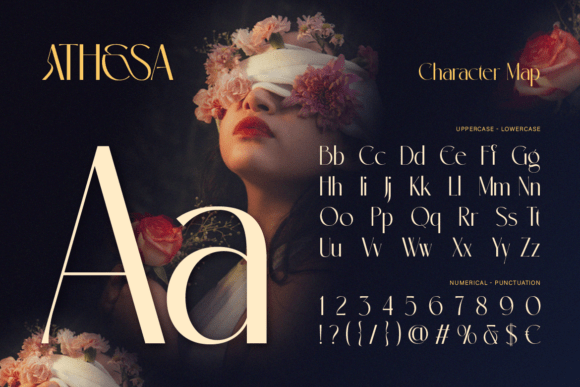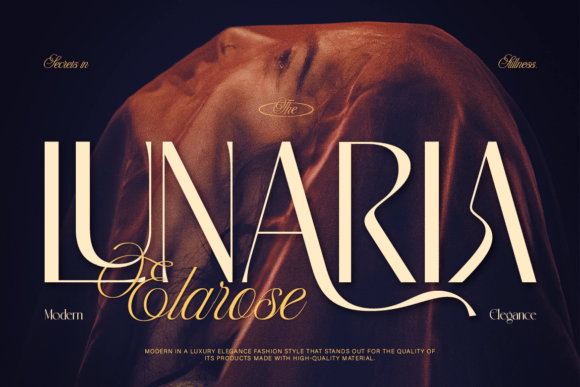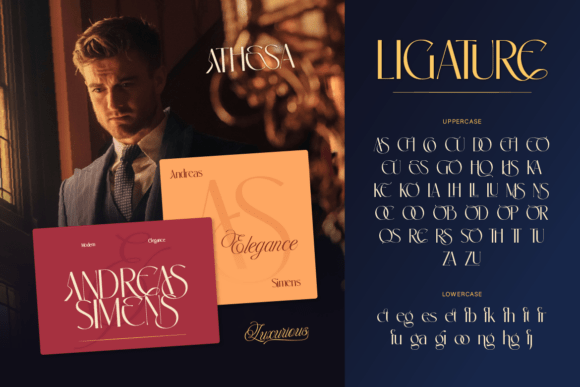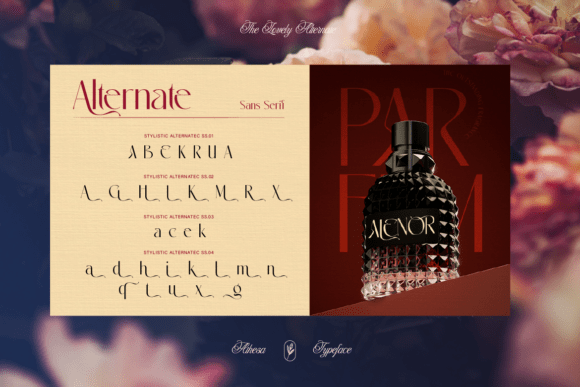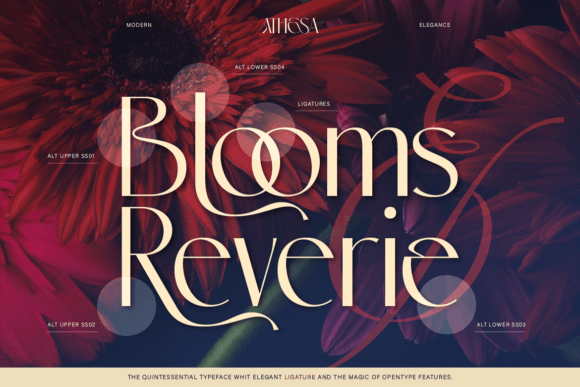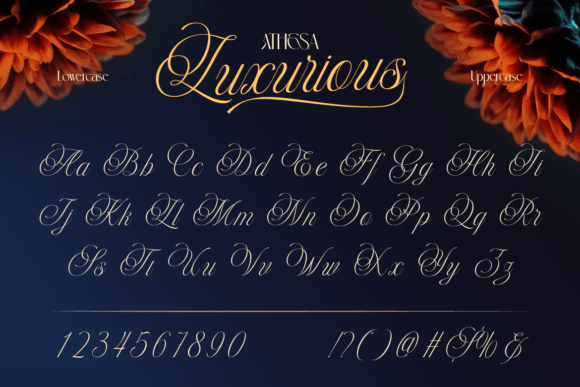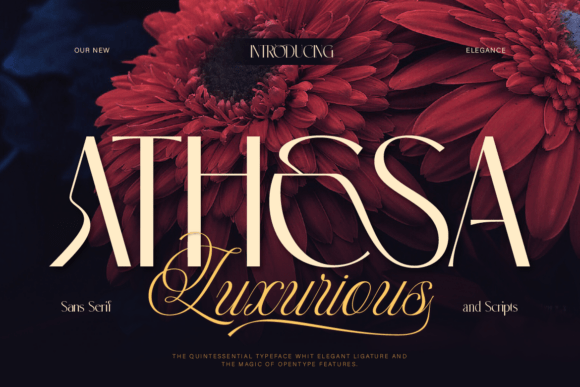
Athesa Luxurious Font: Elevate Your Designs with Elegance and Sophistication
Are you searching for a font that exudes luxury, elegance, and timeless beauty? Look no further than Athesa Luxurious, a stunning font duo that combines the best of modern sans serif and romantic, feminine script typography. This exquisite font pairing is perfect for designers and crafters seeking to create high-end branding, wedding invitations, product packaging, or editorial designs that make a lasting impression.
The Perfect Harmony of Modern and Classic Typography
Athesa Luxurious is a masterful blend of two complementary fonts: a sleek, modern sans serif and a beautiful, flowing script. This harmonious union creates a visual contrast that is both striking and sophisticated, making it ideal for designs that require a touch of elegance and refinement. The sans serif font provides a clean and crisp foundation, while the script font adds a touch of whimsy and romance, resulting in a truly unique and captivating visual identity.
With Athesa Luxurious, the design possibilities are endless. Use this font duo to create:
• High-end fashion branding: Elevate your fashion brand with a sophisticated and luxurious visual identity that exudes style and sophistication.
• Wedding invitations: Make your wedding invitations truly unforgettable with a beautiful and elegant font that sets the tone for a special day.
• Product packaging: Stand out on store shelves with packaging that showcases the beauty and luxury of Athesa Luxurious.
• Editorial designs: Add a touch of elegance and refinement to your editorial designs, such as magazines, blogs, or books.
Stylish Ligatures and Alternates
Athesa Luxurious offers a range of stylish ligatures and alternates that allow you to add a personal touch to your designs. Every letter flows with purpose and poise, making it easy to create beautiful and harmonious typography. The font’s advanced features include:
• Ligatures: Combine letters to create unique and flowing connections that add a touch of elegance to your designs.
• Alternates: Switch between different letterforms to add variety and personality to your typography.
Perfect Balance of Style and Personality
Athesa Luxurious strikes the perfect balance between style and personality, making it an excellent choice for designers and crafters seeking to create unique and captivating designs. The font duo’s versatility and elegance ensure that it can be used in a wide range of applications, from luxury branding to editorial designs.
Why Choose Athesa Luxurious?
Here are just a few reasons why Athesa Luxurious is the perfect choice for your next design project:
• Elegance and sophistication: Athesa Luxurious exudes luxury and refinement, making it perfect for high-end designs.
• Versatility: The font duo can be used in a wide range of applications, from branding to editorial designs.
• Unique and captivating: Athesa Luxurious is a true standout, making it easy to create designs that grab attention and leave a lasting impression.
In conclusion, Athesa Luxurious is a stunning font duo that offers the perfect blend of elegance, sophistication, and personality. Whether you’re a designer or crafter, this font is sure to elevate your designs and help you create beautiful, harmonious, and captivating typography that leaves a lasting impression.